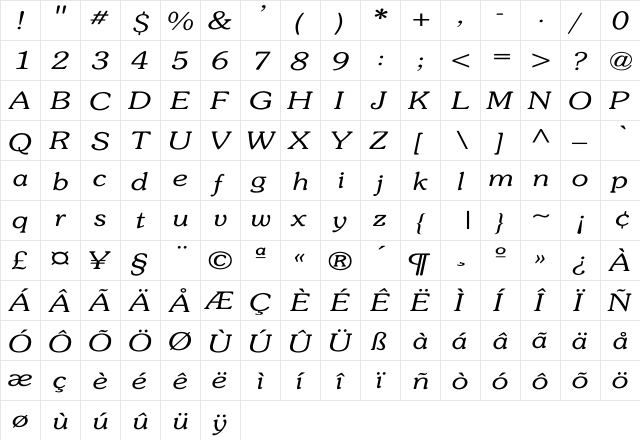
Souvenir-Light-Italic Wd Regular Font Preview
Souvenir-Light-Italic Wd Regular
Design Context for Souvenir-Light-Italic Wd Typeface
Souvenir-Light-Italic Wd takes a measured approach to typography — its balanced proportions and neutral character make it a reliable workhorse for both digital and print work. The dynamic lean of this cut emphasises speed and emphasis in any layout. The delicate stroke weight brings airiness and refinement to layouts.
Pro Tip: Use Souvenir-Light-Italic Wd for emphasis, pull quotes, and subheadings where its slanted energy can add rhythm to the layout.